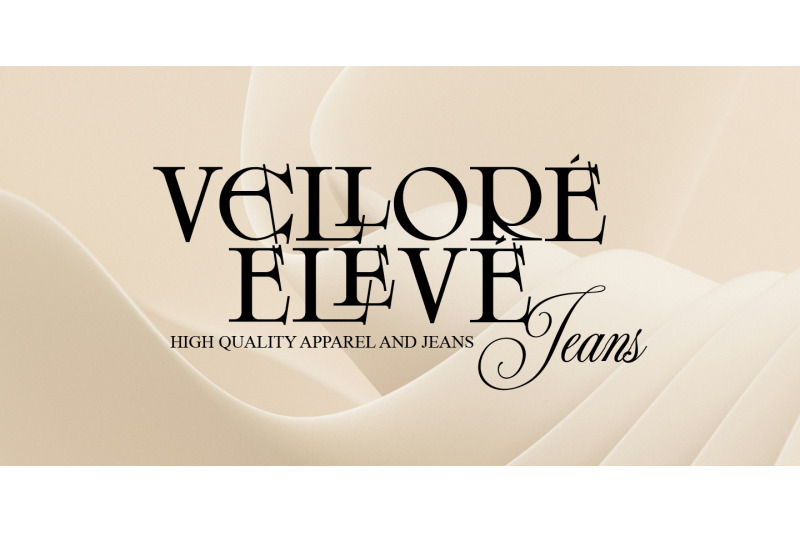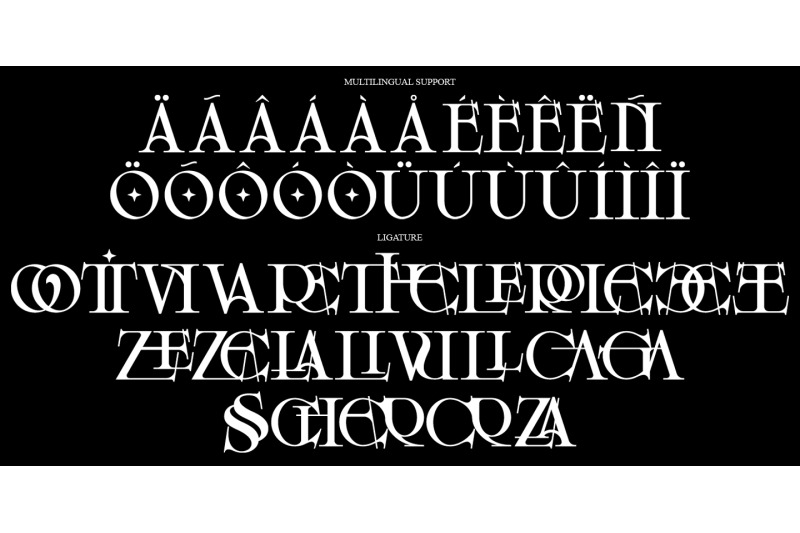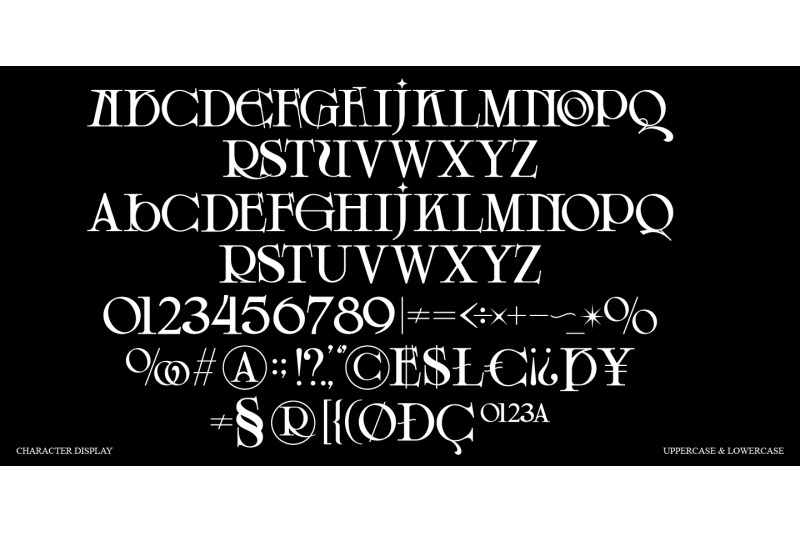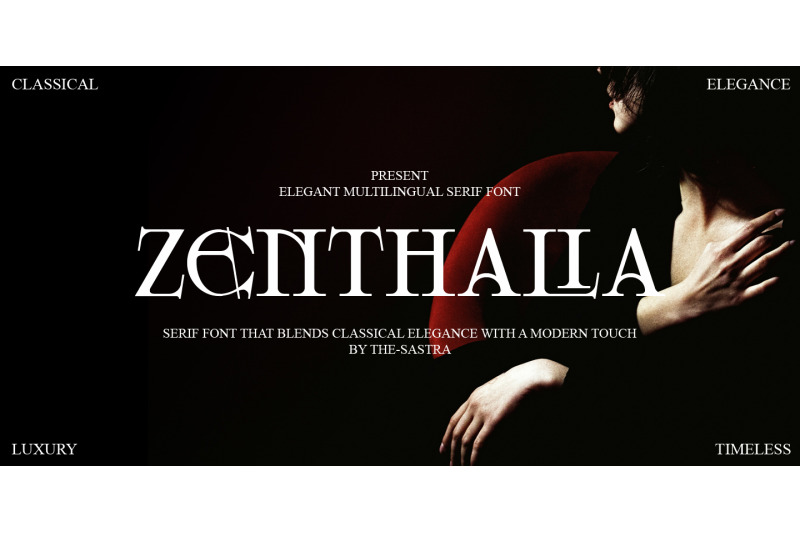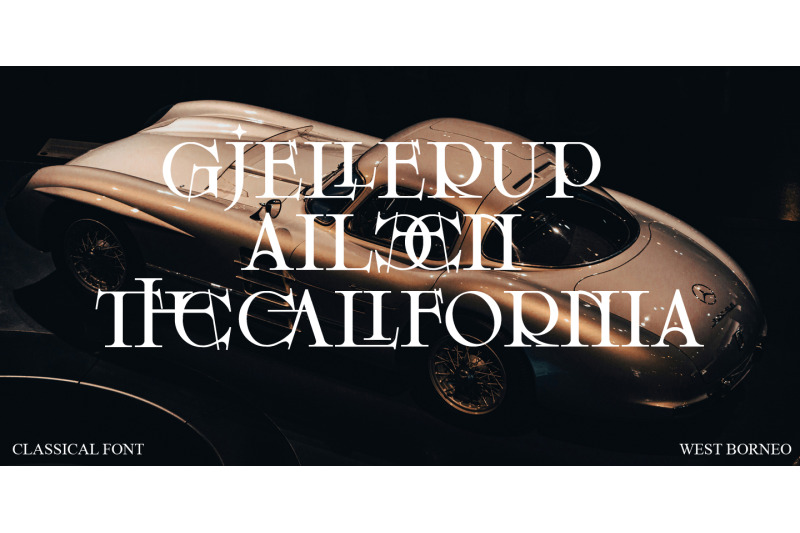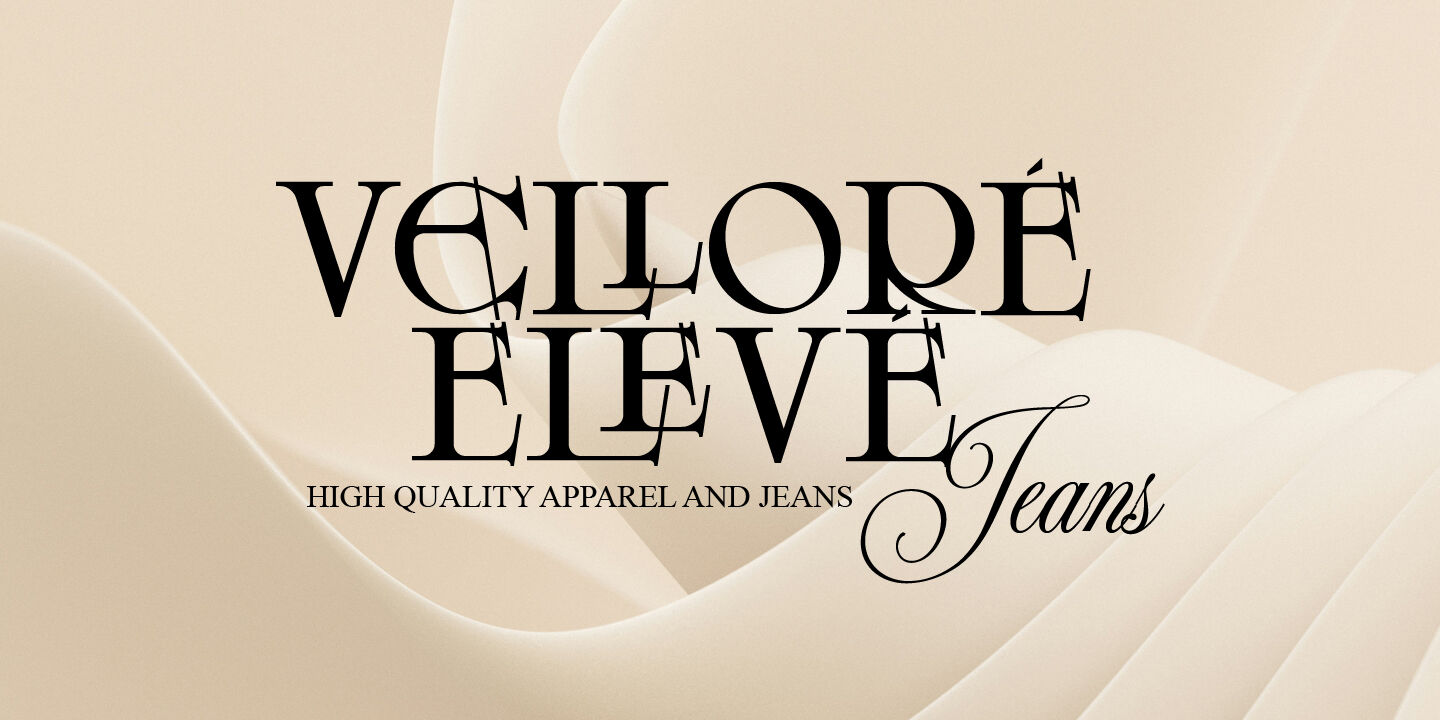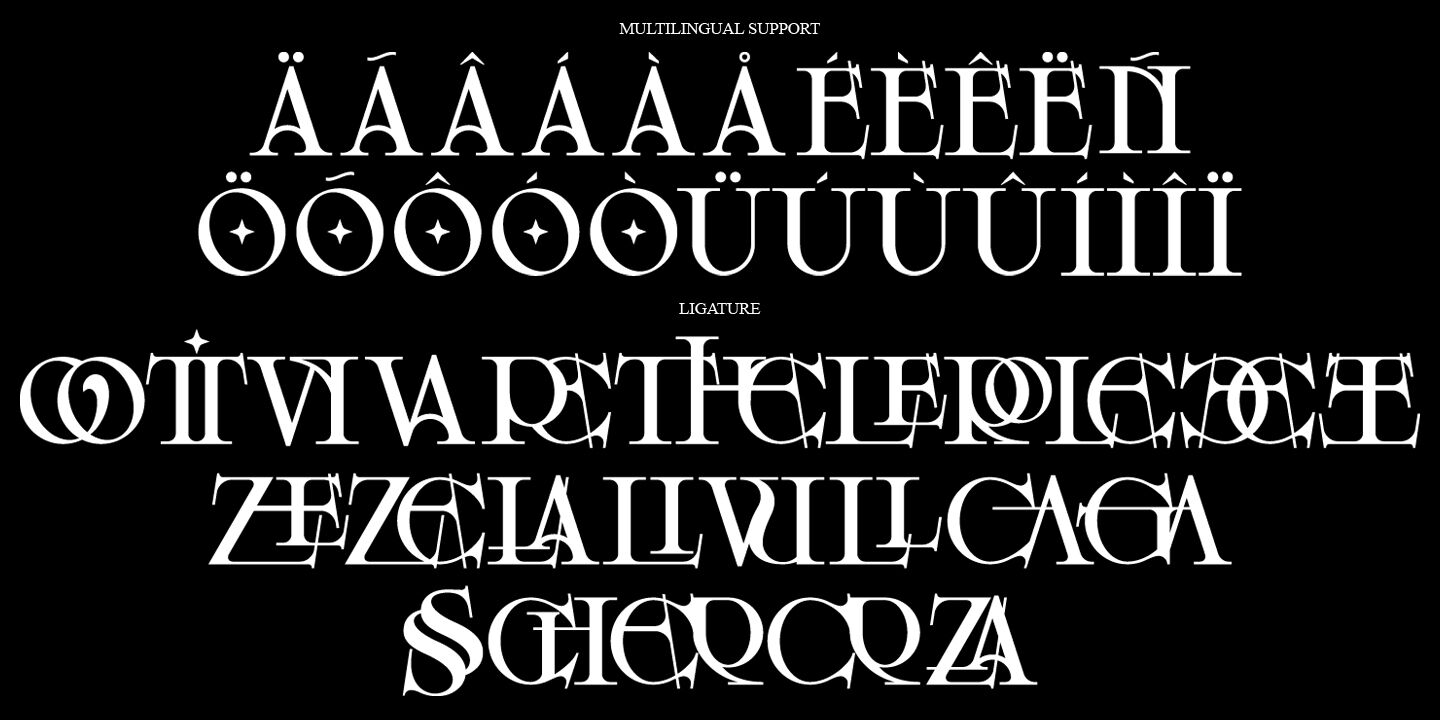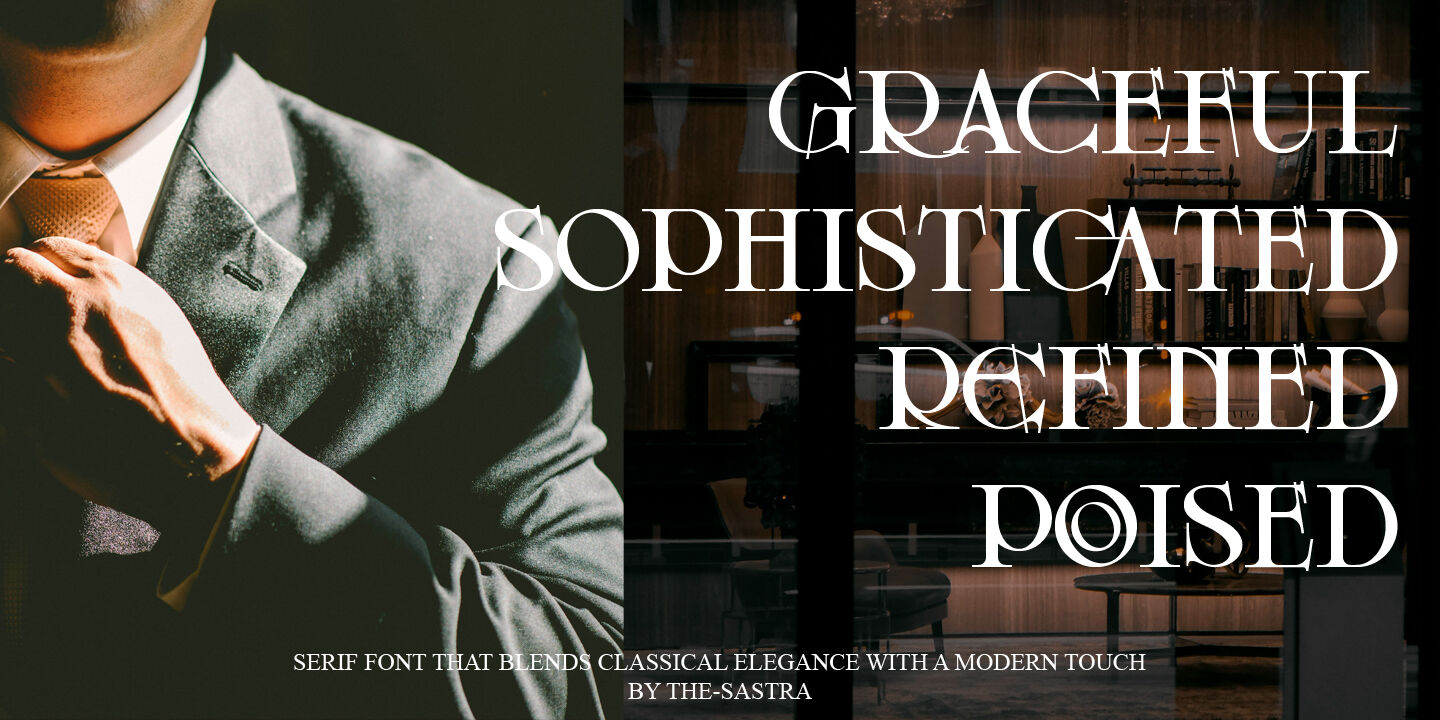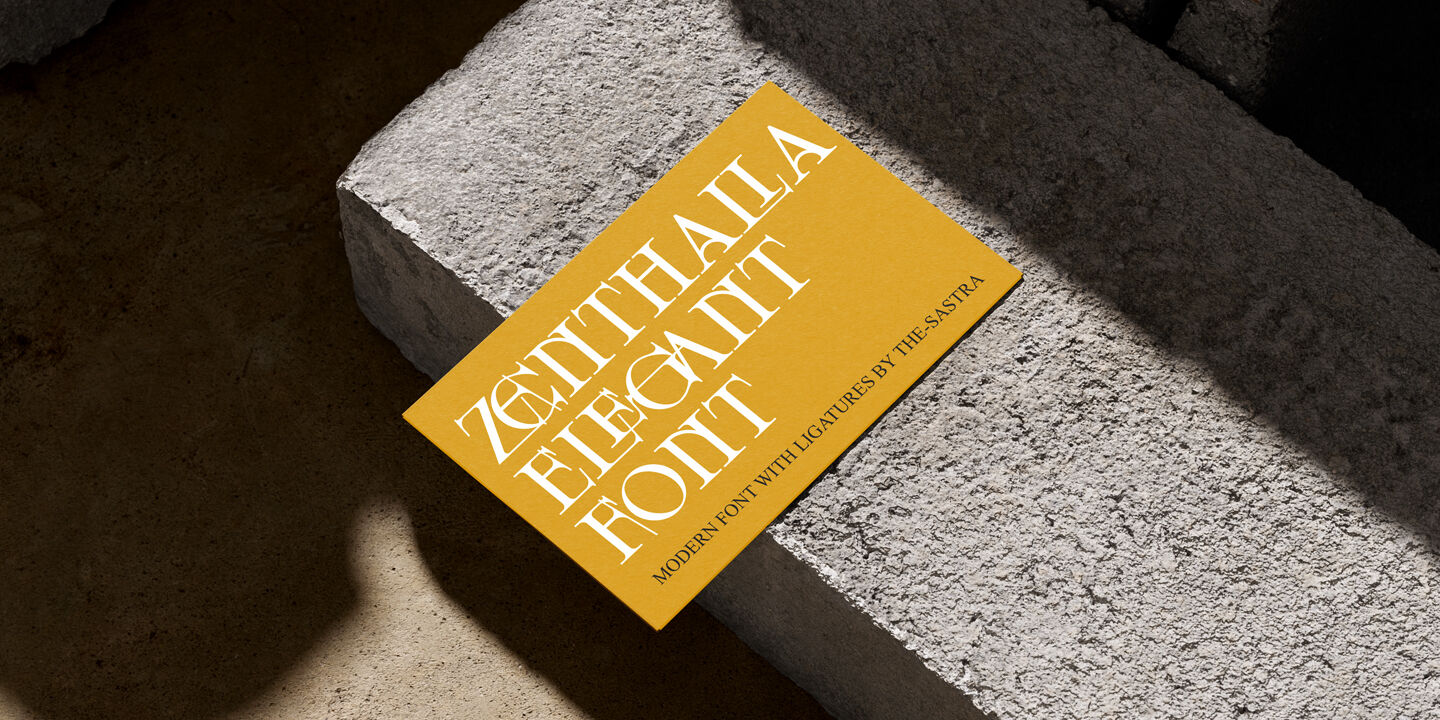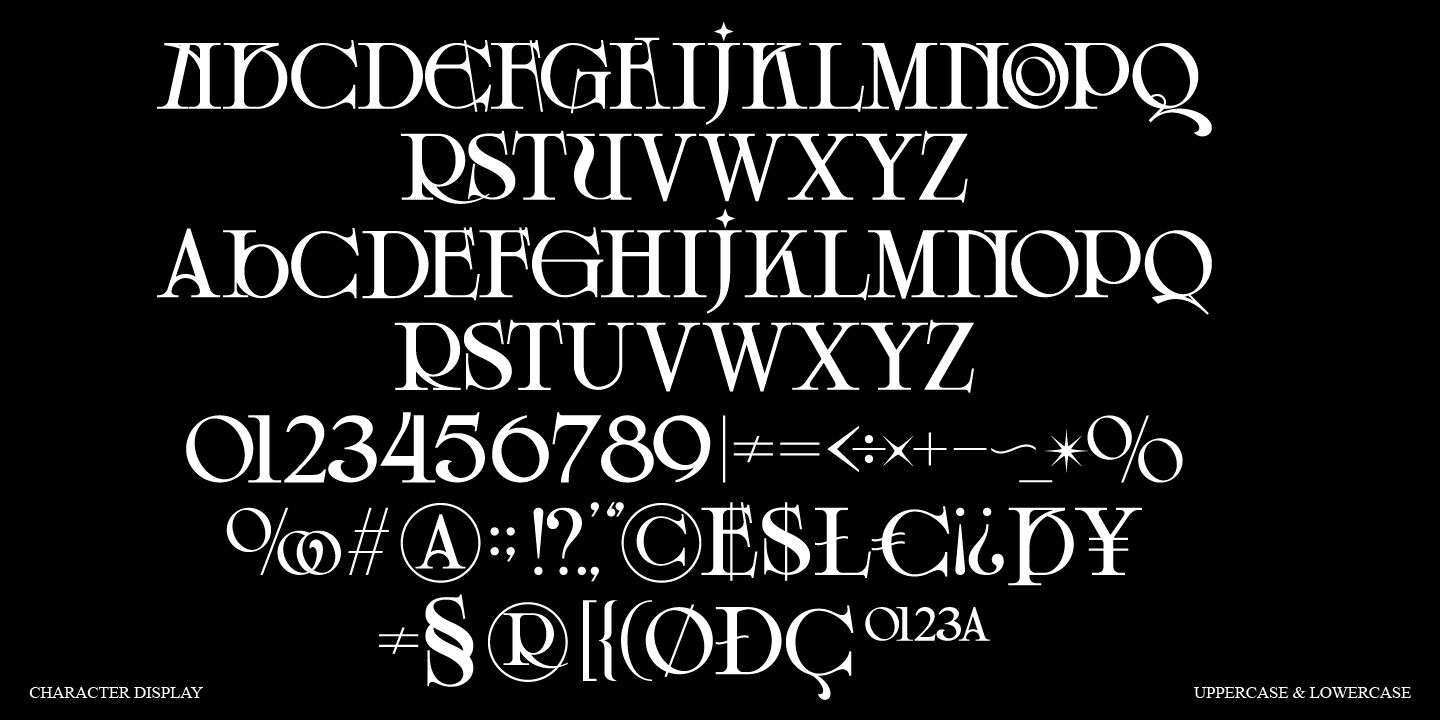
Zenthalia is a timeless serif font that blends classical elegance with a modern touch — crafted for designers who seek sophistication, readability, and global reach. Whether you're designing a luxury brand, editorial layout, wedding invitation, or international campaign, Timeless brings a refined character to your work.
What Makes Zenthalia Special?
Elegant & Versatile With finely balanced letterforms and stylish serifs, Zenthalia shines in both large headlines and long-form body text.
Multilingual Support Designed with international users in mind, Zenthalia supports Latin Extended characters—making it perfect for branding across the globe.
Display-Ready Ideal for luxury packaging, logos, magazine titles, book covers, and high-end websites.
Timeless Style Inspired by classic Roman type but reimagined with modern aesthetics, every curve and angle has been thoughtfully sculpted.
Full Uppercase & Lowercase
Alphabet Numbers & Punctuation
Multilingual Accents Ligatures
Perfect For:
High-end branding Editorial & publishing
Fashion & beauty packaging Invitations & print designs Cultural & art projects